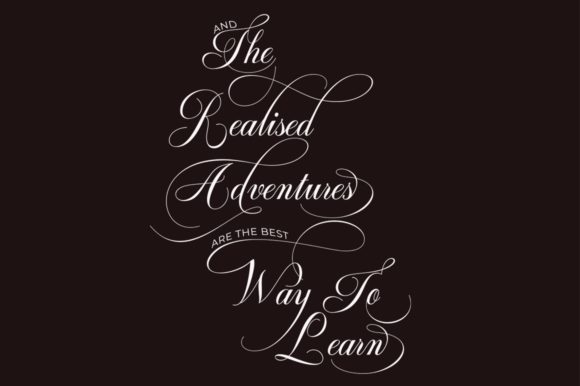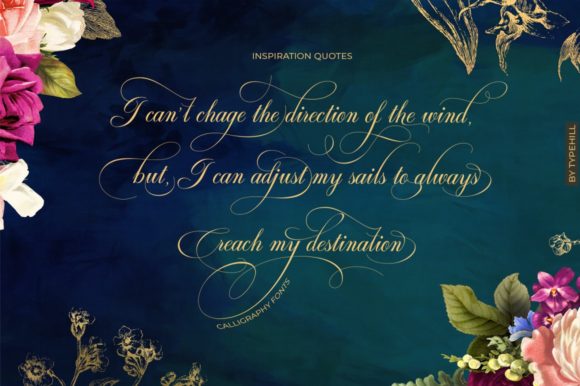
Graphitel Font
db-ku.com - Script & Handwritten -- Graphitel is an extremely delicate and sophisticated handwritten font with lots of personal charm! It will elevate any design project.